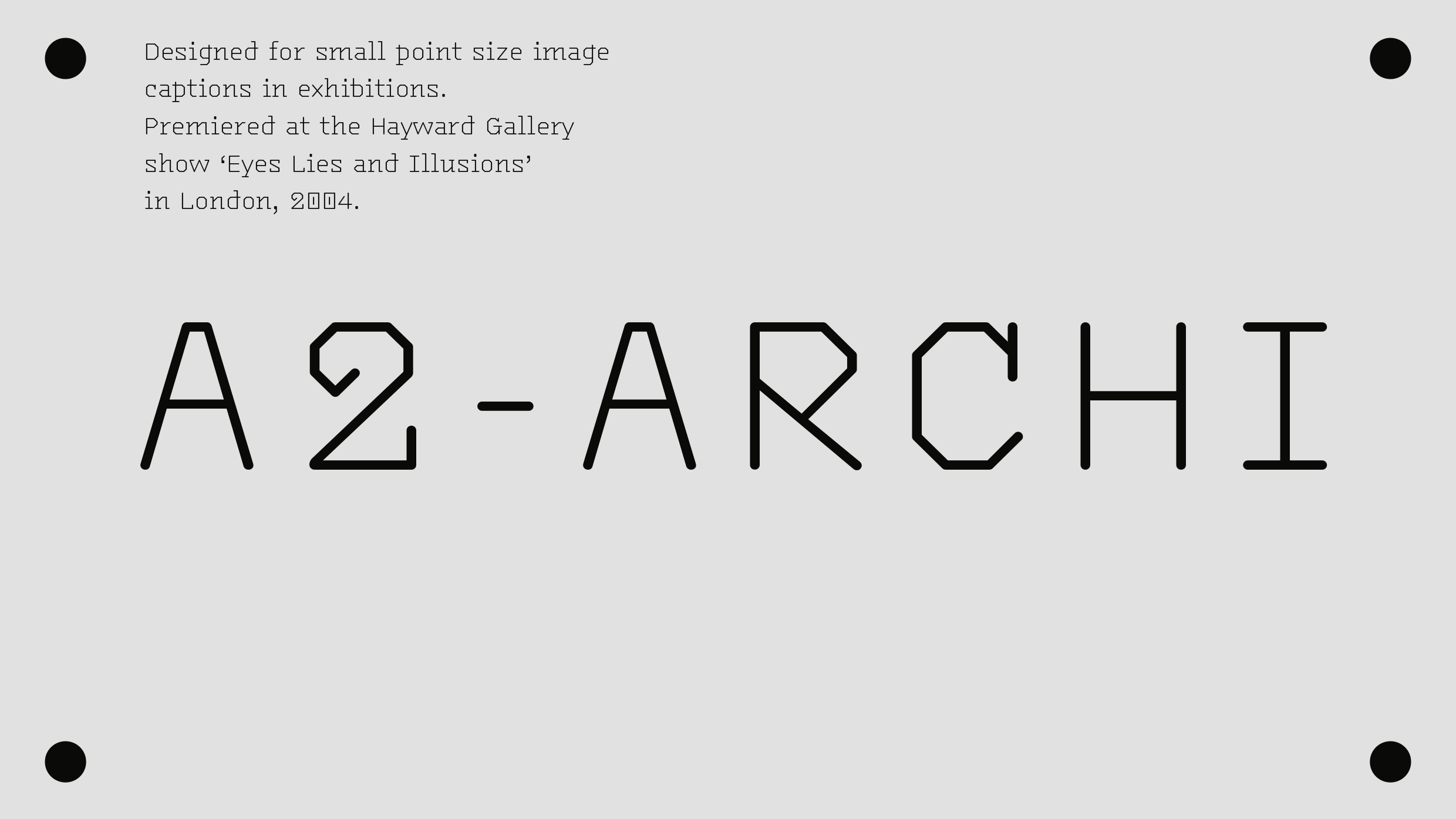
Archi is a mono-linear text face originally created for the exhibition ‘Eyes, Lies and Illusions’ at the Hayward Gallery, London, 2004. The font is inspired by mono-linear typography commonly found in architectural drawings and the mechanical process of routing. Archi is superbly legible at all point sizes.
Archi Regular
| Font name: | Archi |
| Styles: | Regular |
| Script: | Latin |
| Manufacturer: | A2-TYPE |
| Designer: | Henrik Kubel |